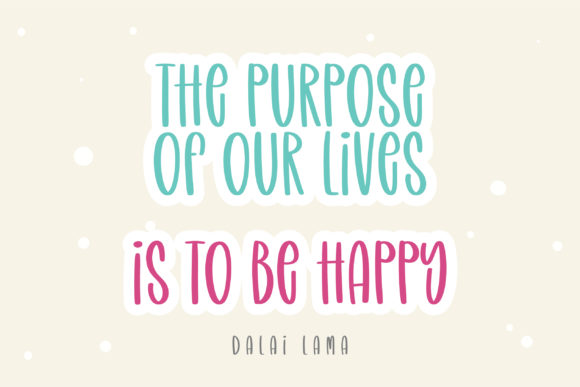
Enjoy the Little Things Font
Enjoy the Little Things is a cute and timeless handwritten font. Its natural and unique style makes it incredibly fitting to a large pool of designs. The only limit is your imagination!